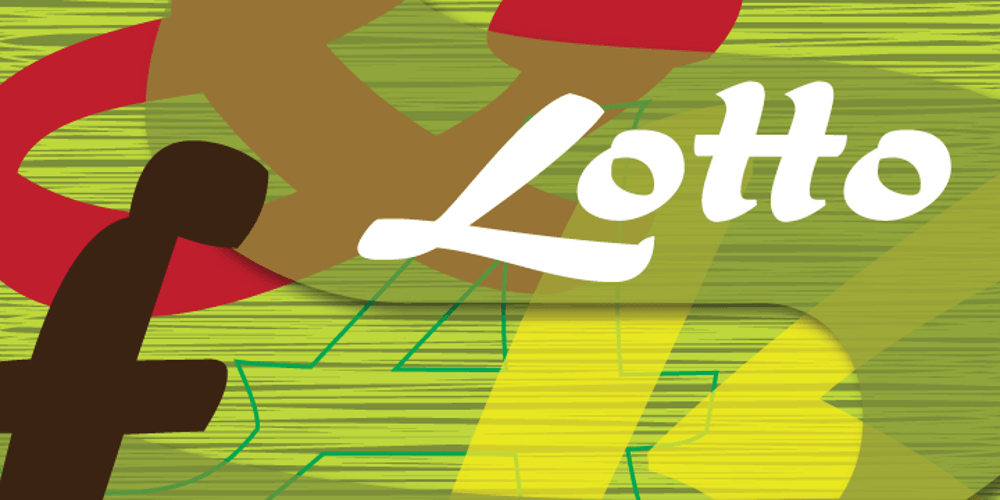
Lotto Font Family was designed by Herbert Thannhaeuser, Hans van Maanen and published by Canada Type. Lotto contains 1 styles and family package options. Designed by expert ad artist Herbert Thannhaeuser for East German foundry Typoart in 1955, Lotto was until now one of the long lost gems of European sign and brush lettering faces. Unlike in Kurier (Thannhaeuser’s other brush face digitized by Canada Type as Puma), the forms’ brush construct uses a series of strokes that are mostly sudden, whimsical, and at times even look like great genius being born out of simple afterthought or straight-forward idiosyncracy. For instance, check out the simple brush pause that is the top of the f, the confident yet welcoming serifs on the T, the similarly-themed C/E and O/Q relationship, and much more. Lotto comes with over 400 glyphs, contains a few alternates and ligatures sprinkled throughout the character set, and includes support for the majority of Latin languages.